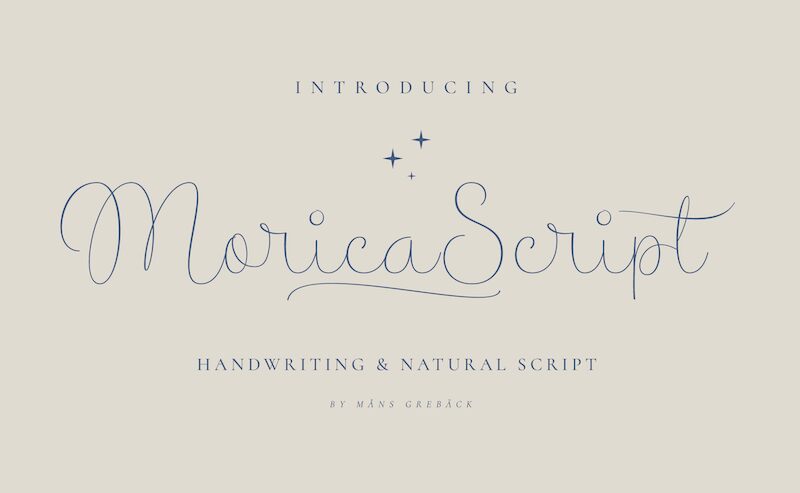
Morica Script PERSONAL USE Regular
Morica Script, designed by Mans Greback, is a delicate and romantic handwritten typeface with a fine touch. Its thin lines and whimsical style bring a sense of elegance and charm to your creative projects.
The semi-light weight of Morica Script adds an airy and graceful feel to invitations, greeting cards, and wedding stationery. With its romantic flair, this font also pairs well with fashion editorials, beauty blogs, and lifestyle magazines. Morica Script brings a touch of sophistication to branding materials for boutique hotels or high-end spas.
Use underscore _ to make an swash anywhere in a word.
Example: Lov_ing
Use multiple underscores to make longer swashes.
Example: Mag___ical